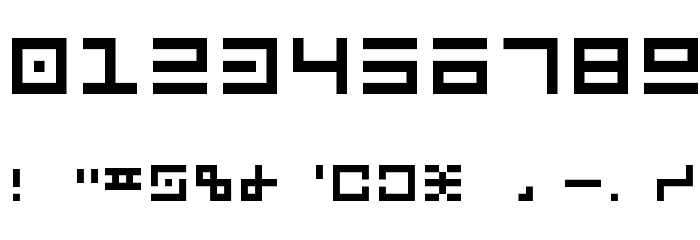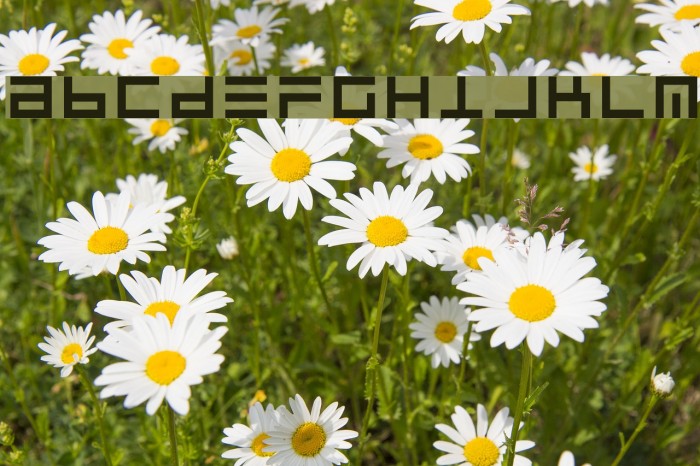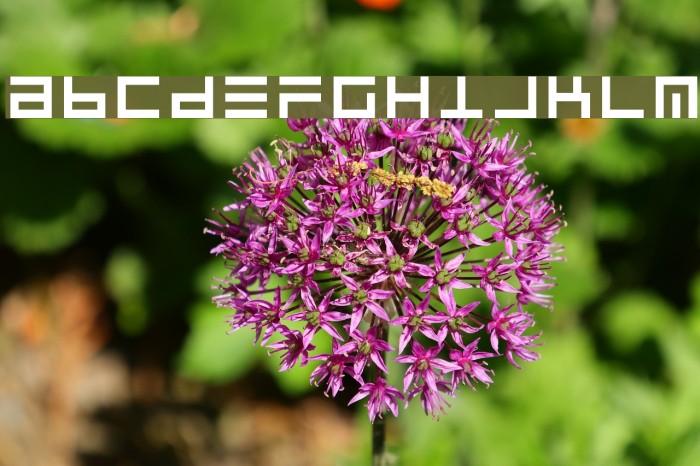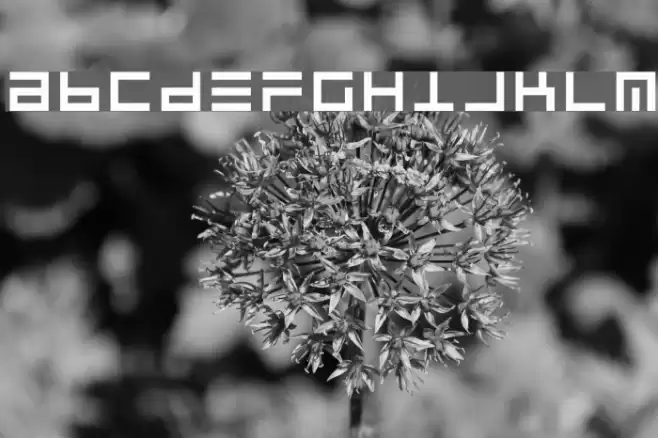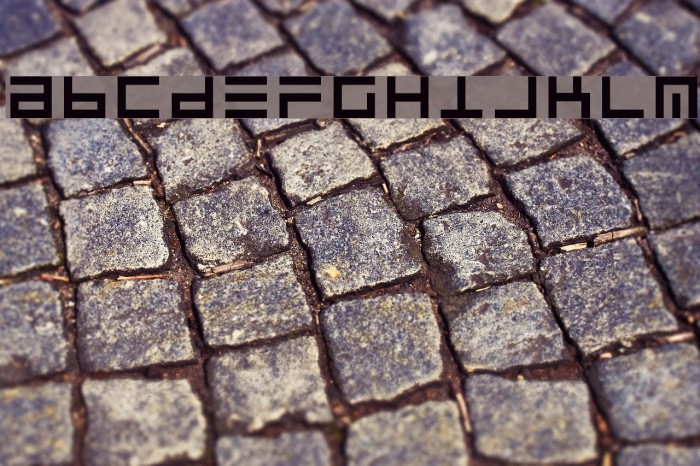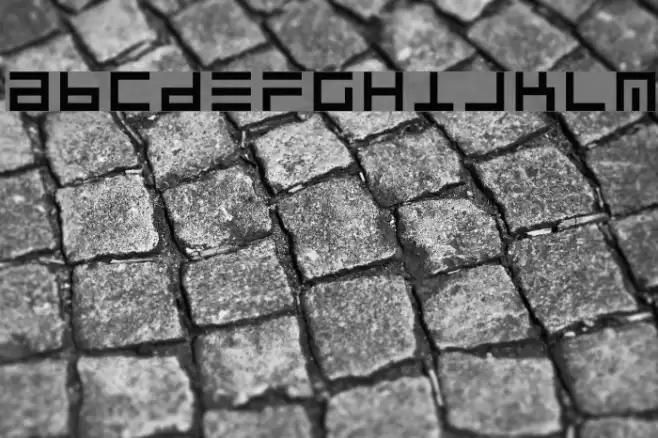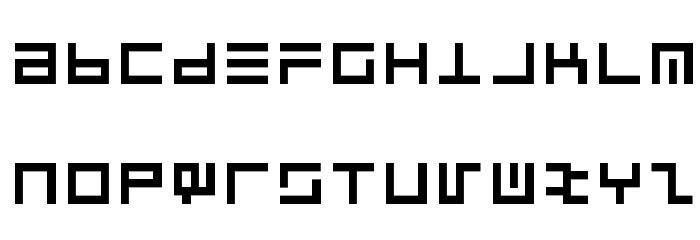
UltraLine Font
UltraLine Description
This font features a geometric and futuristic design with a distinctly digital appearance. The characters are composed of straight lines and right angles, giving them a blocky and mechanical feel. The uppercase and lowercase letters share a similar structure, maintaining a consistent height and width. The numerals and special characters follow the same design principles, ensuring uniformity across the entire set. The font's bold and angular style makes it suitable for modern and tech-oriented projects, where a strong visual impact is desired.
| Proposed Projects | Ideal for technology branding, digital interfaces, video game design, and futuristic-themed posters. |